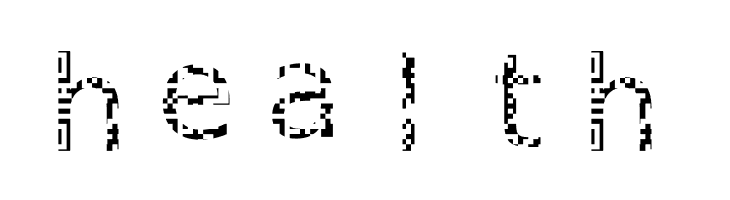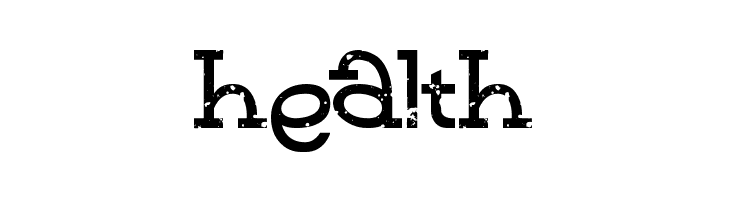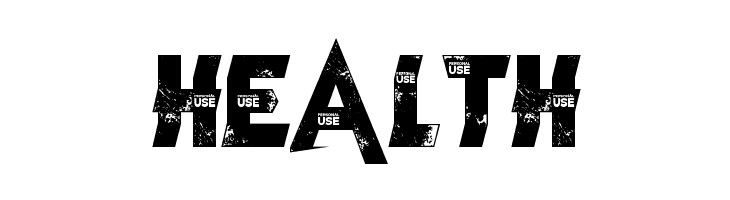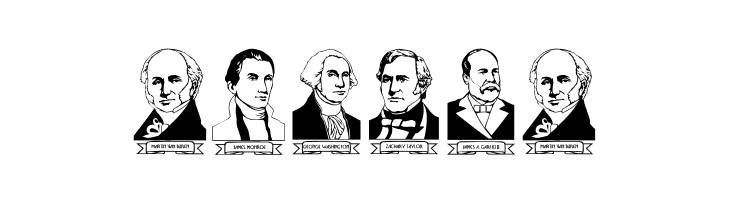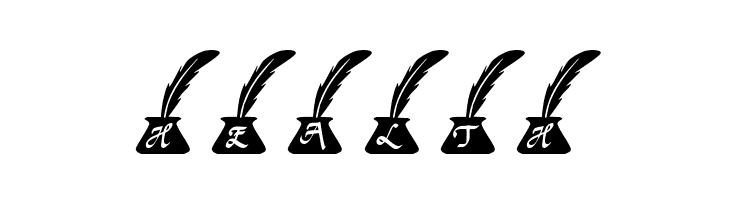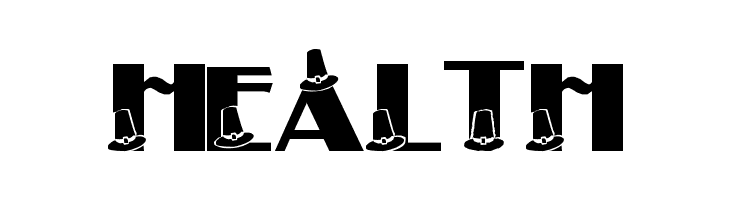
A distressed serif font with a vintage, grunge aesthetic.
A bold, distressed font with a gritty, textured appearance.
Decorative illustrated portraits of American presidents with nameplates.
A decorative serif font with characters in ink pots topped by quills.
A decorative font with characters accompanied by flag-waving illustrations.
A playful font featuring Pilgrim hats atop bold characters.
A vintage typewriter-style font with a rough, textured appearance.
A bold, stencil-style font with a rugged, utilitarian look.
A bold, detailed set of medieval and fantasy-themed icons.
A distressed, grunge-style font with a vintage, textured appearance.